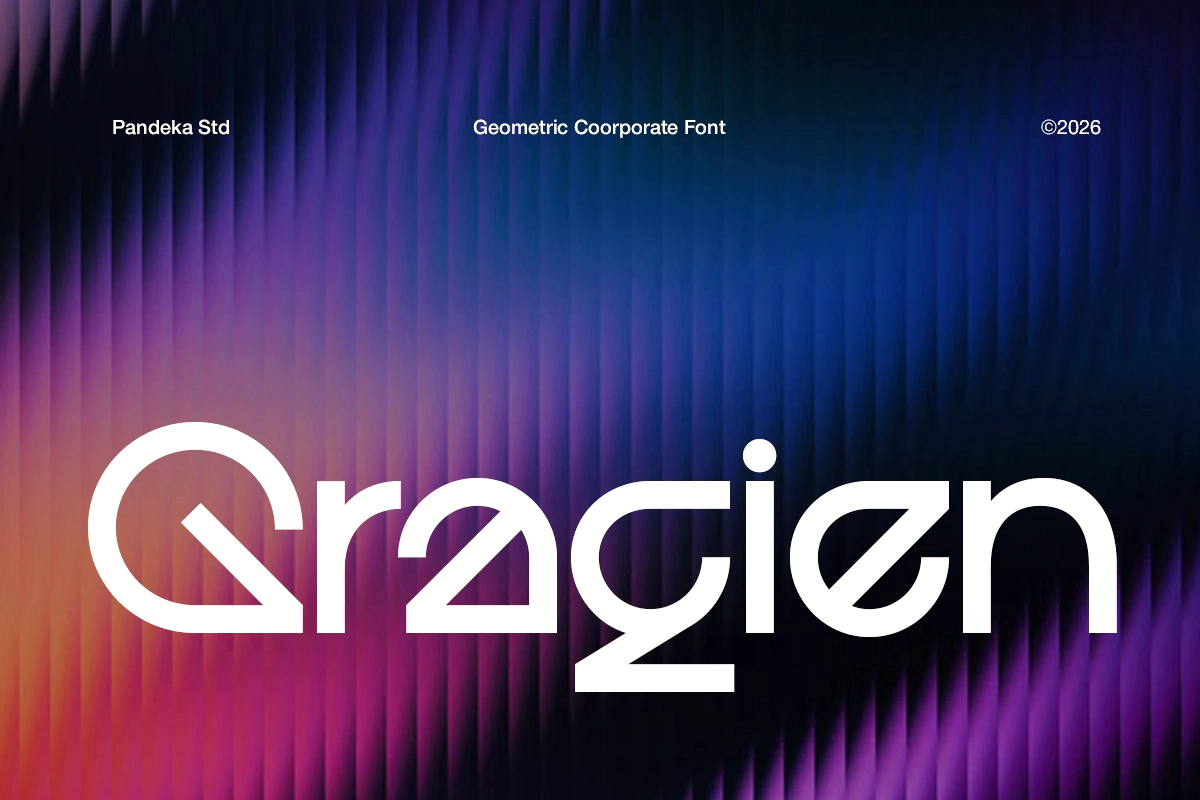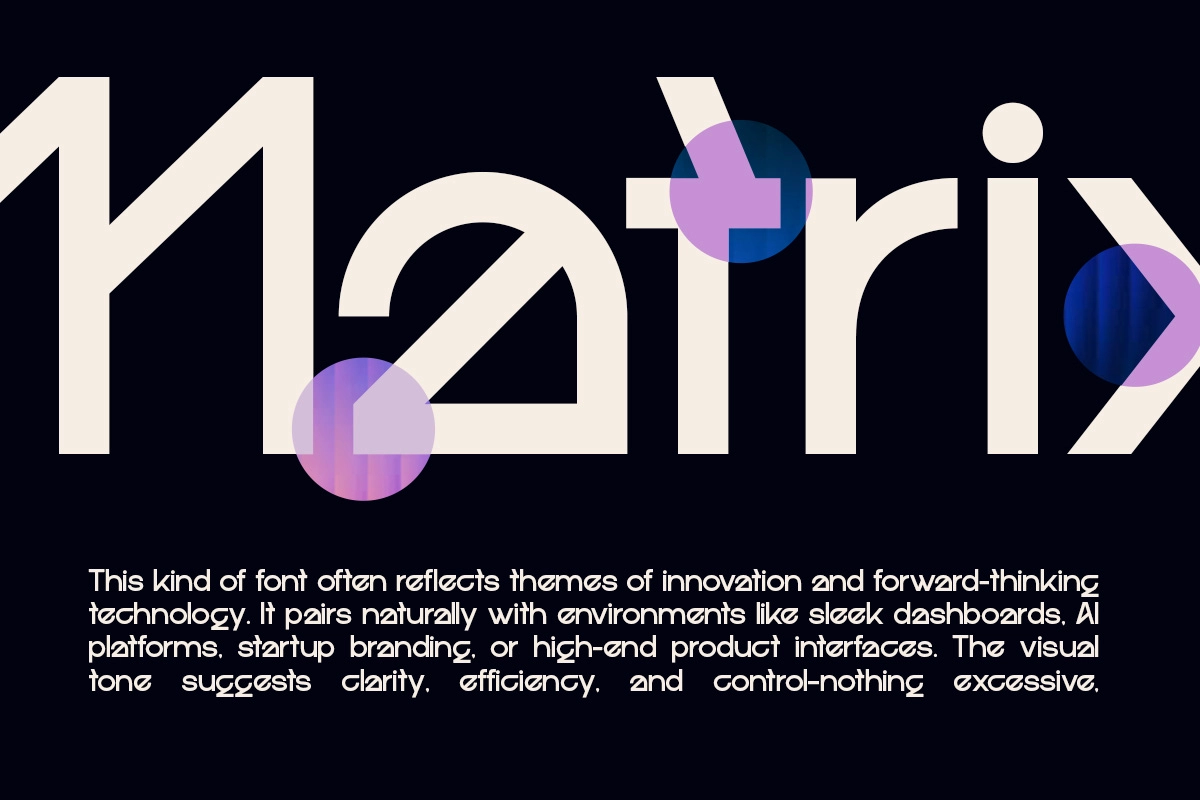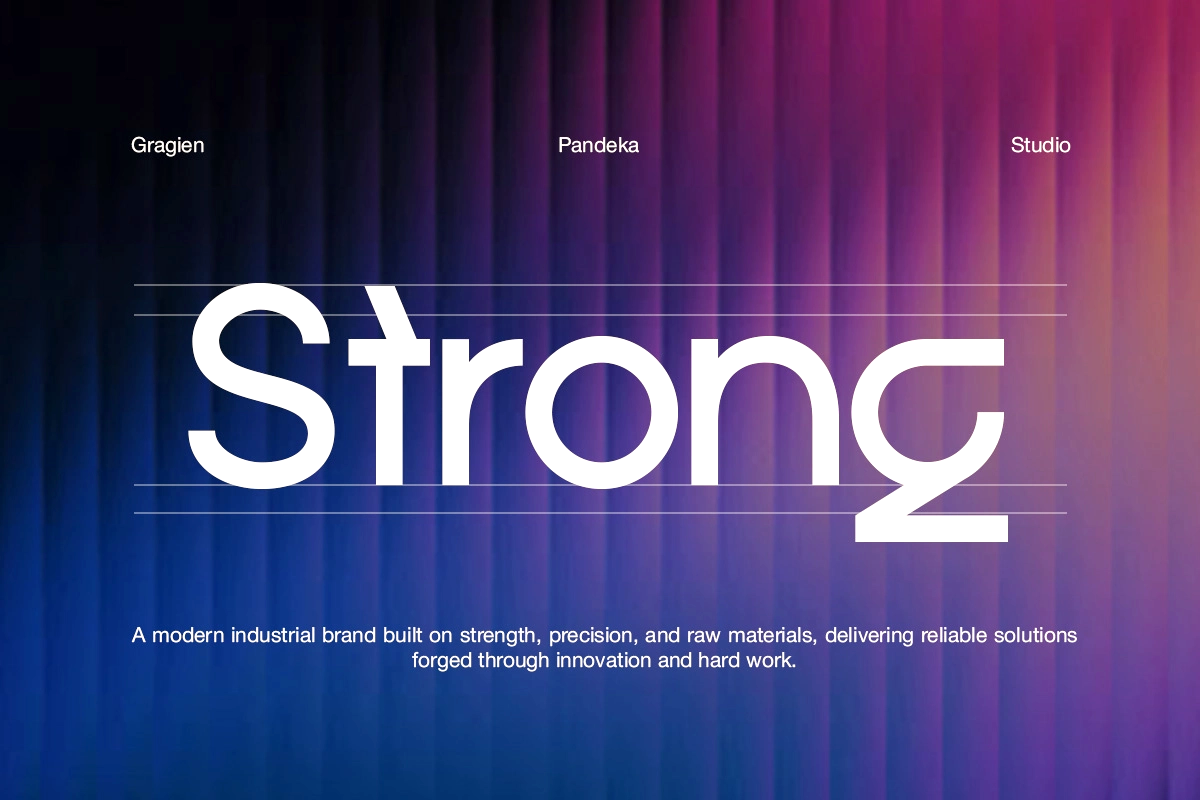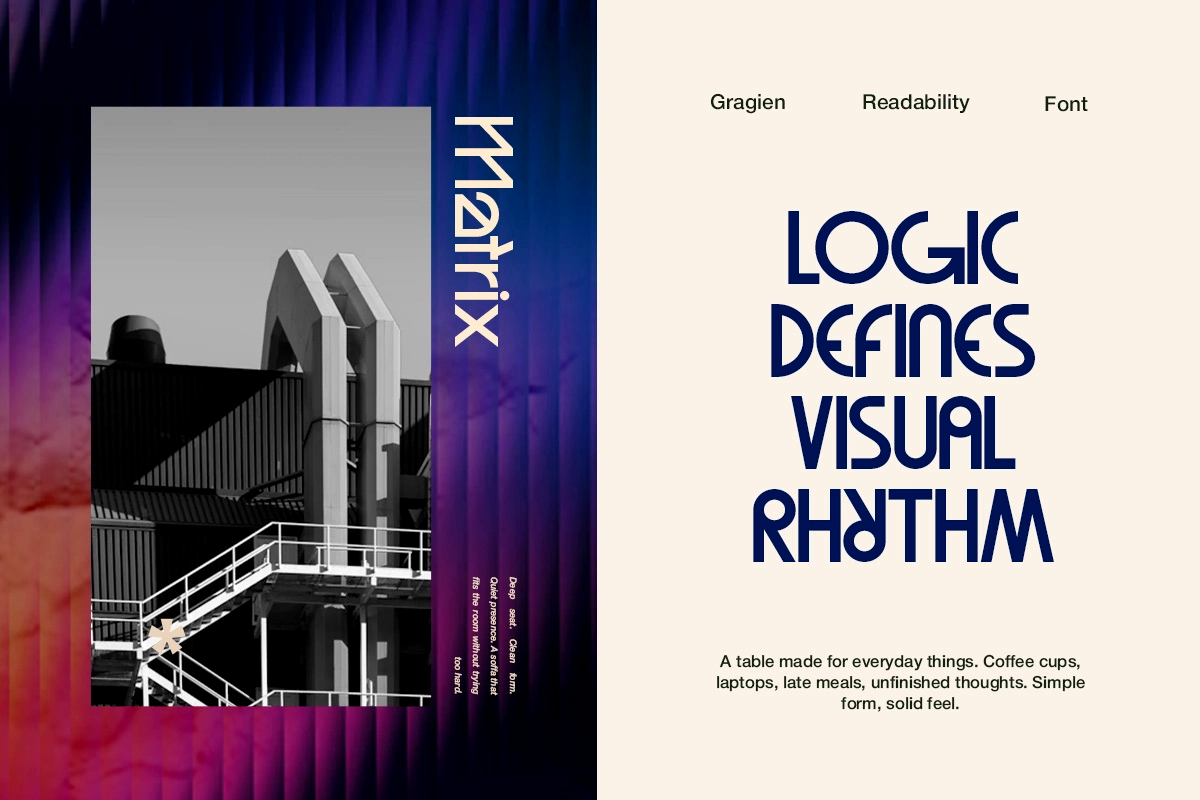
Gragien - Geometric Tech Font
Gragien
Gragien is a geometric tech font with precise circular counters, sharp apex points, and rounded terminals, giving it the crisp construction of sci-fi interface type and circuit-board signage. Every curve holds to the same geometric logic, so headlines read clean and controlled at any size.
Gragien works best in structured, confident settings where a wordmark needs an engineered look, not a decorative one. Use it for tech branding, SaaS product logos, dashboard interfaces, startup identity systems, app onboarding screens, editorial tech headlines, and pitch deck covers.